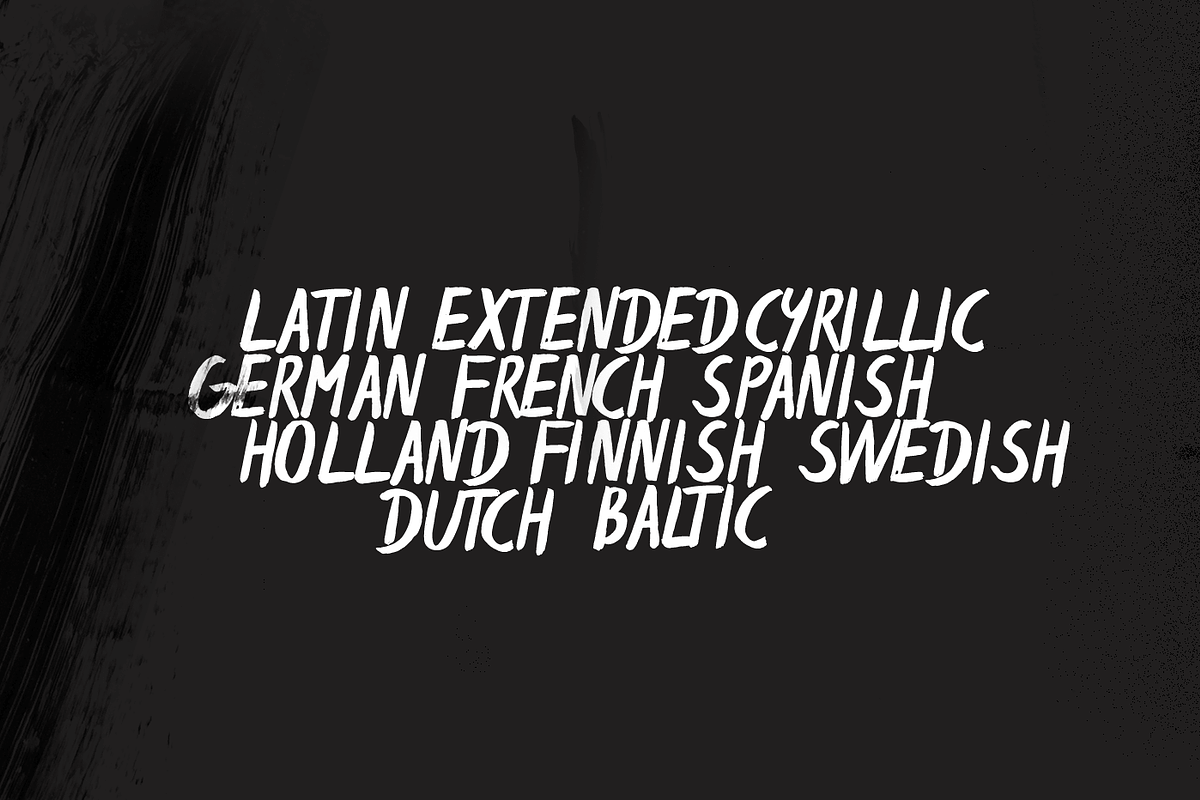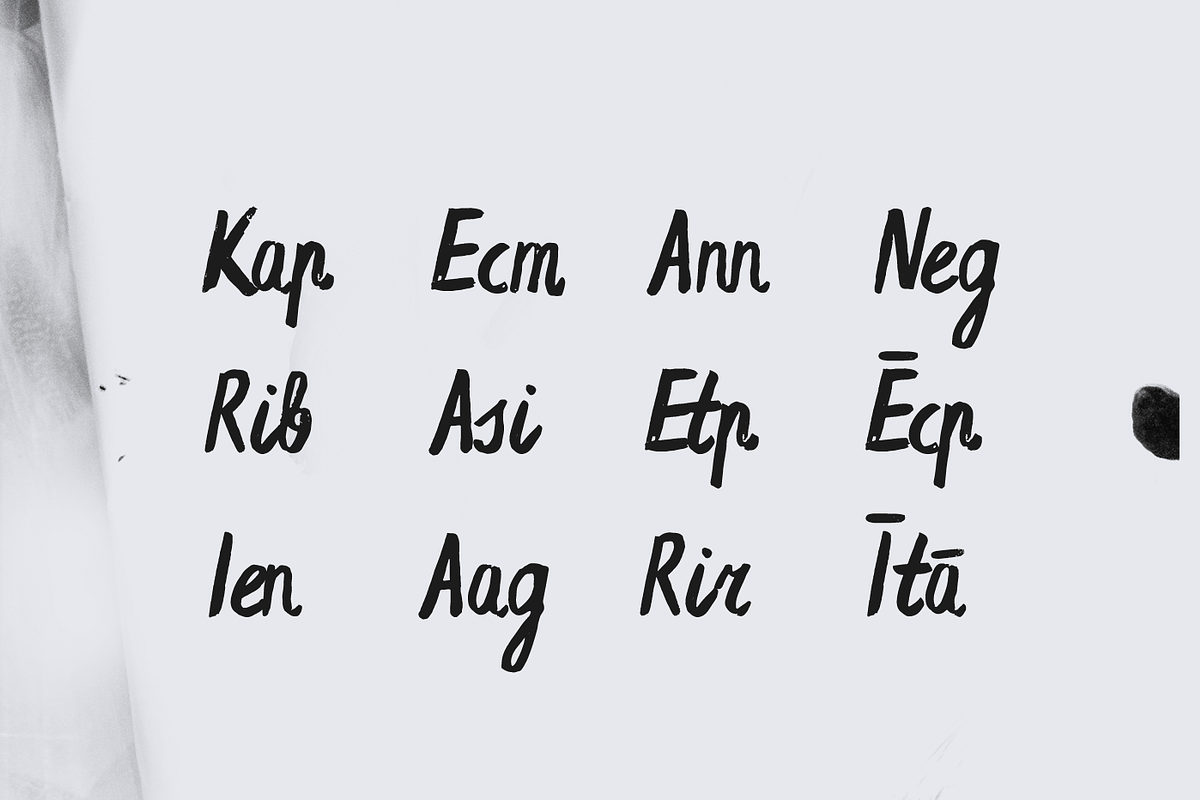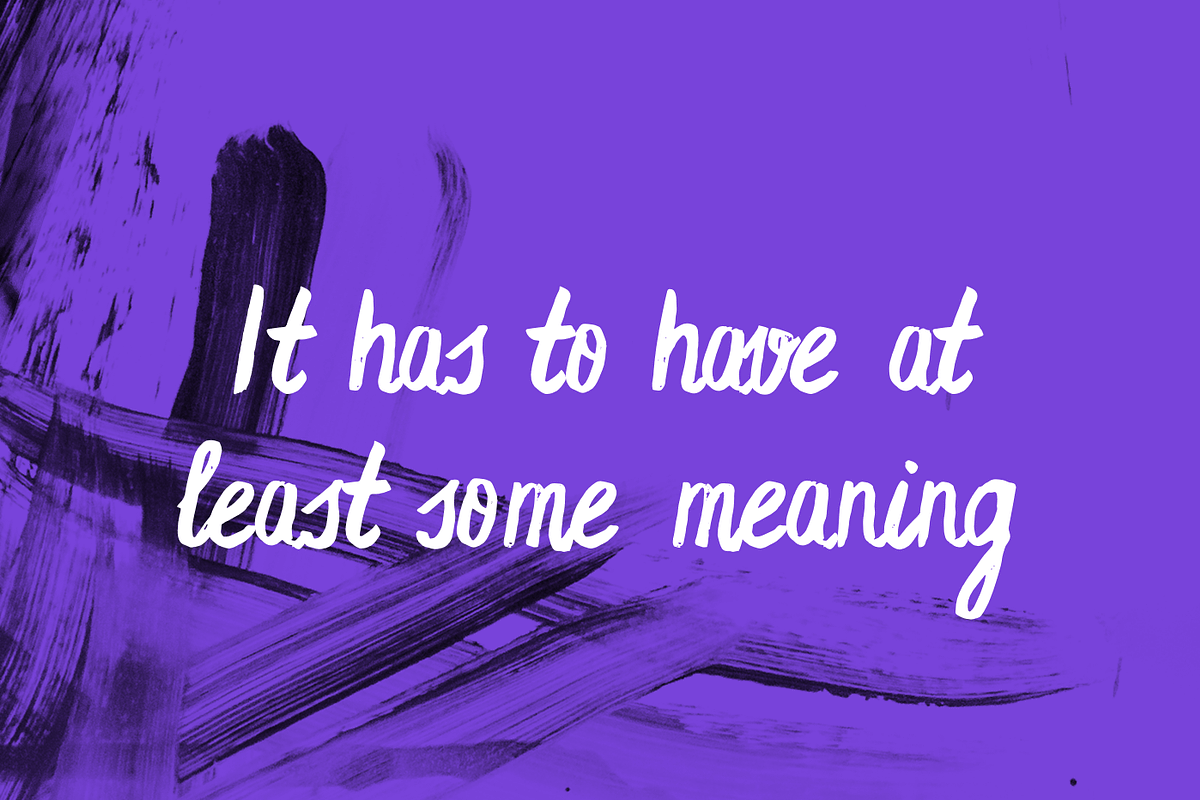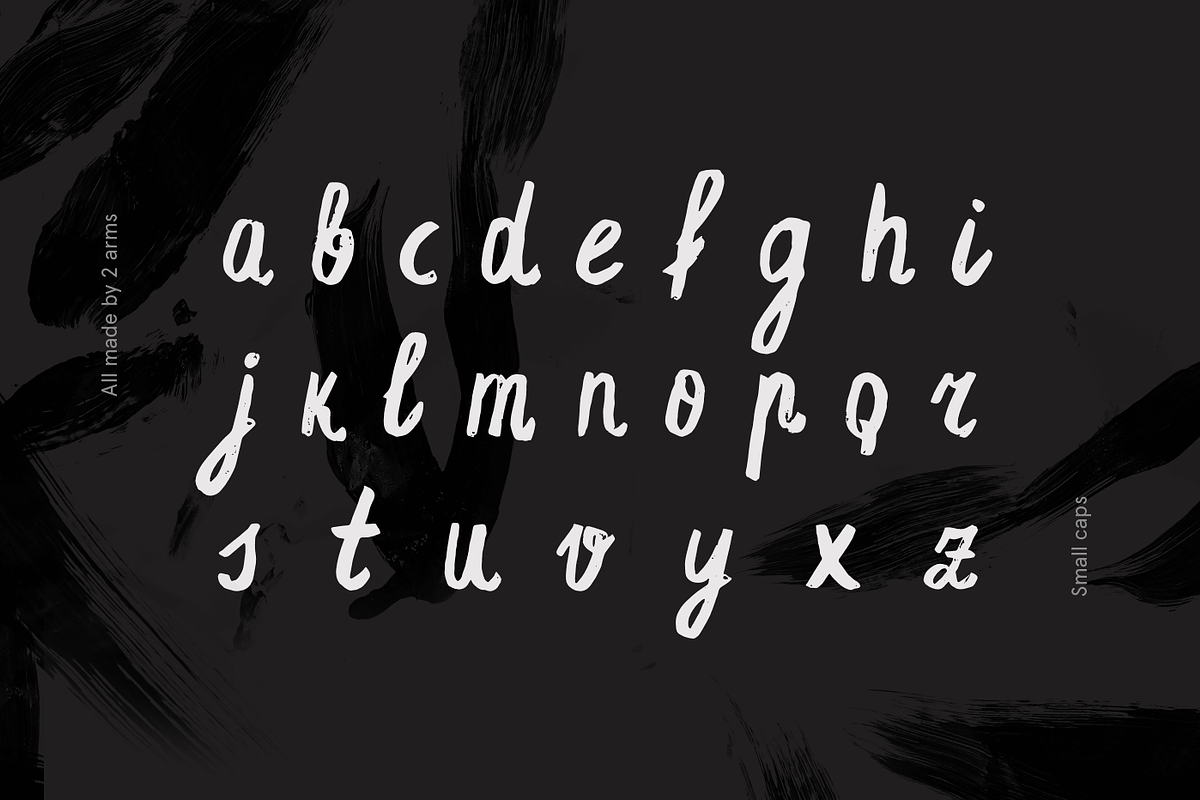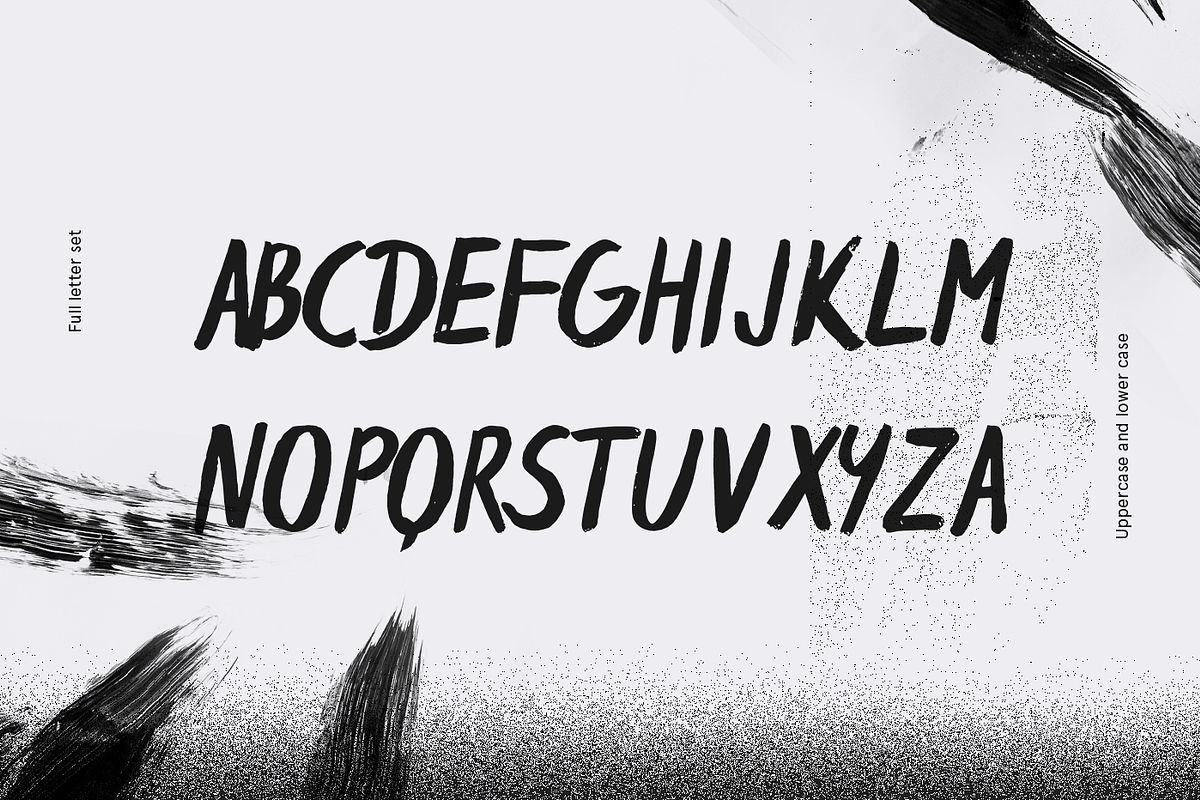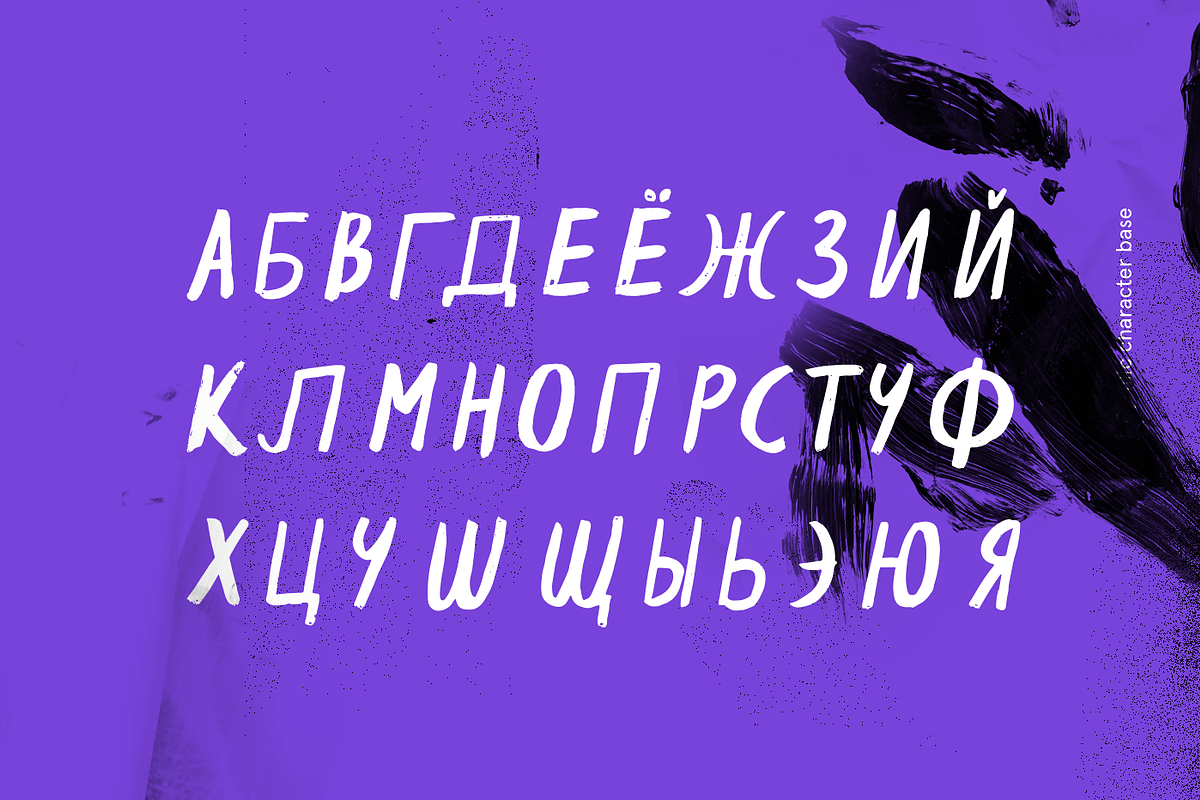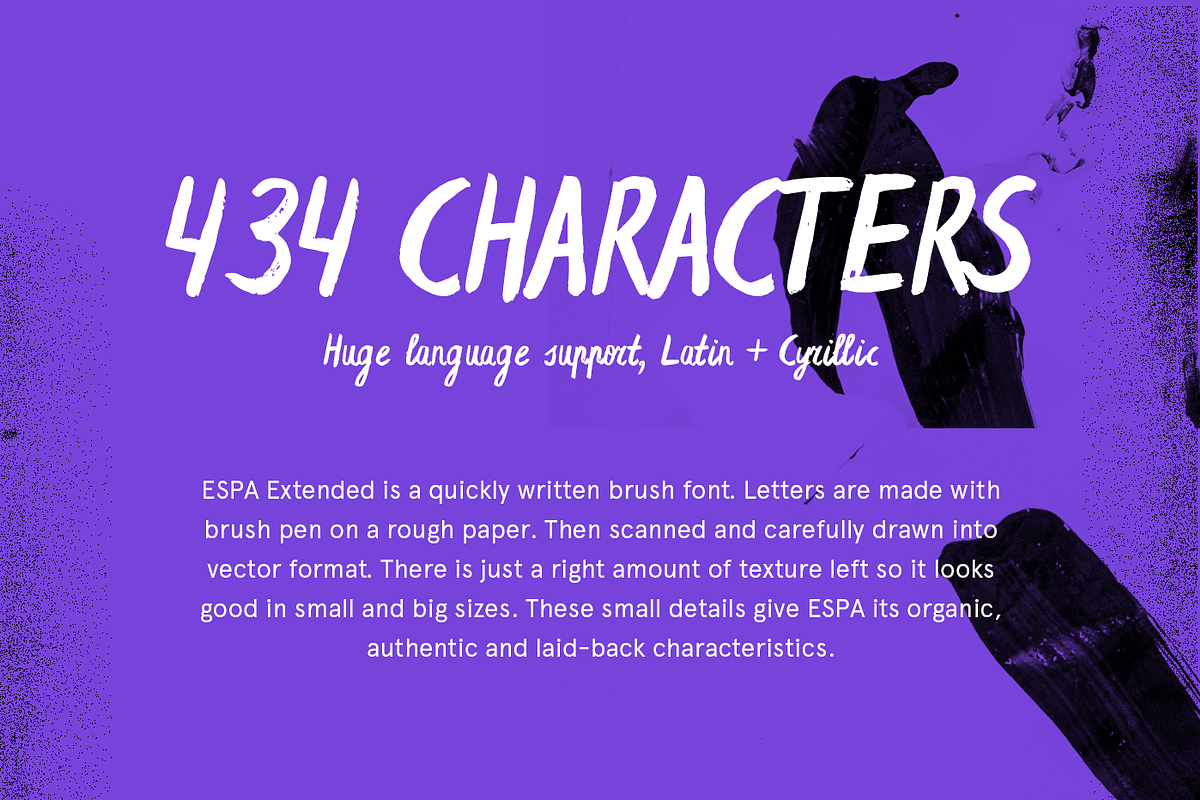
Espa Extended Brush Font
Espa Extended brush font was made by Ieva and Krisjanis Mezulis. It features a brush made feel and look. Every single letter has been hand drawn with a thin water brush on acrylic paper, this making the typeface unique.The font suits best big headlines and gives them a personal touch.
Download contains 434 characters and has all the basic glyphs, .otf and .woff files. It supports both latin extended languages and Cyrillic character base. Espa extended is the pro version of the already made Espa free Brush Font.